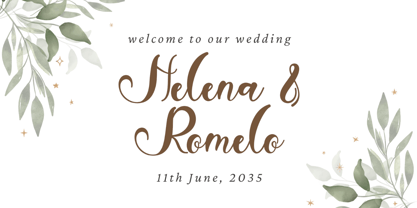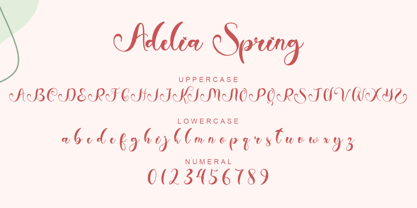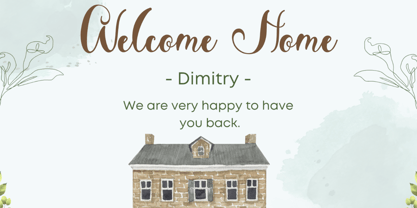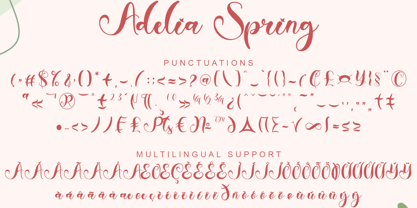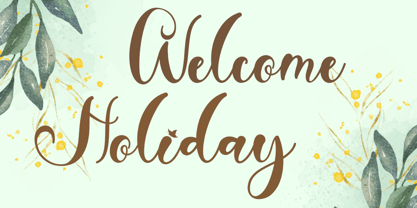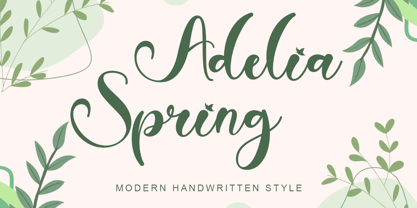
Adelia Spring
by Yoga Letter
The Adelia Spring Font Family was designed by Isroni Yoga Prasetya and published by Yoga Letter. Adelia Spring contains 1 styles.
"Adelia Spring" is a beautiful and elegant handwritten font. This font is equipped with uppercase, lowercase, numerals, punctuations and multilingual support. It is very suitable for use in spring, holiday, summer, vacation, christmas, banners, invitations, branding, stickers, posters and others.